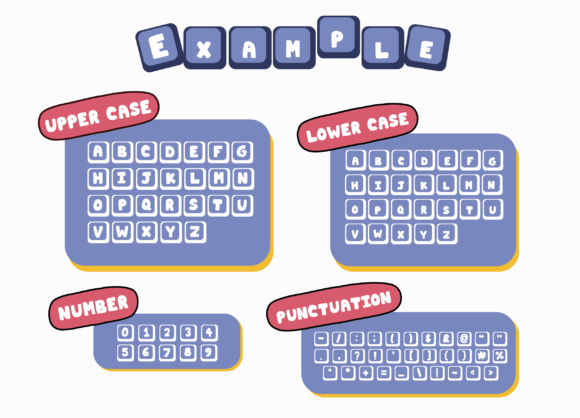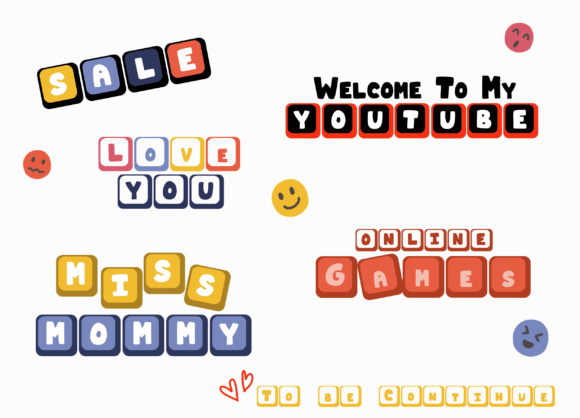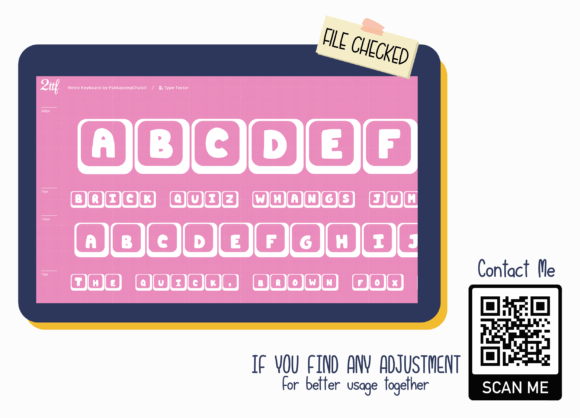
Introduction to Retro Keyboard Font Font
Fonts play a crucial role in design, and the Retro Keyboard Font font is a typeface that brings both character and versatility to any project. Whether you’re working on a branding project, a website, or a print design, the Retro Keyboard Font font offers a unique style that can elevate your work.
A keyboard button font in a retro theme takes young creators on a journey to the past, blending the allure of vintage tech with playful simplicity.
Each letter resembles classic typewriter keys, evoking a sense of nostalgia and exploration Decorate your retro project with our keyboard design font.
Key Features of Retro Keyboard Font Font
Why Choose Retro Keyboard Font Font?
The Retro Keyboard Font font is more than just a typeface – it’s a design tool that helps you communicate your message with style and clarity. Its unique character set and versatile design make it suitable for a wide range of applications, from elegant invitations to bold headlines.
With its carefully crafted letterforms and balanced proportions, the Retro Keyboard Font font ensures readability and visual appeal across all mediums.
What makes Retro Keyboard Font font special?
The Retro Keyboard Font font stands out with its unique design, exceptional readability, and versatility across various design applications.